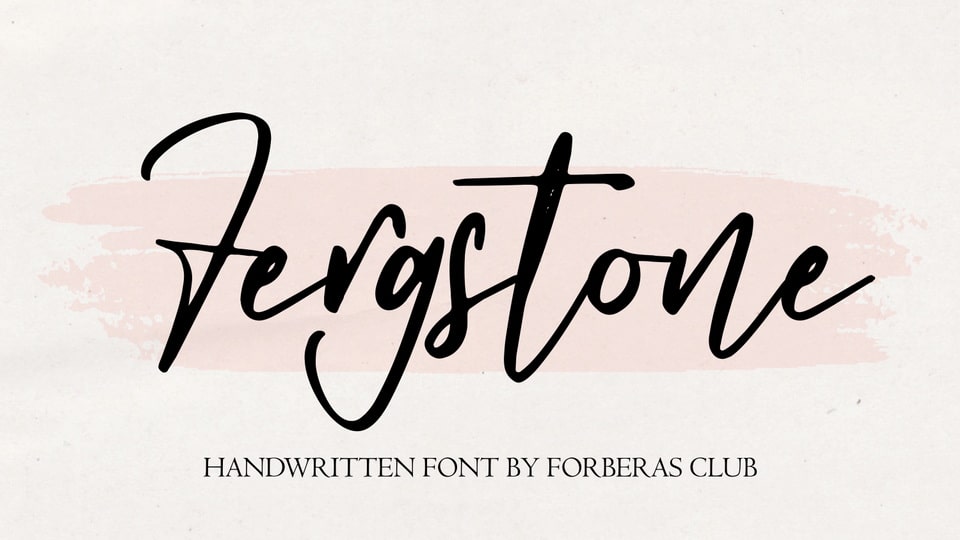
Download Fergstone font, a flowing script typeface inspired by casual handwriting. Fergstone is especially designed for lettering, crafts, modern projects.